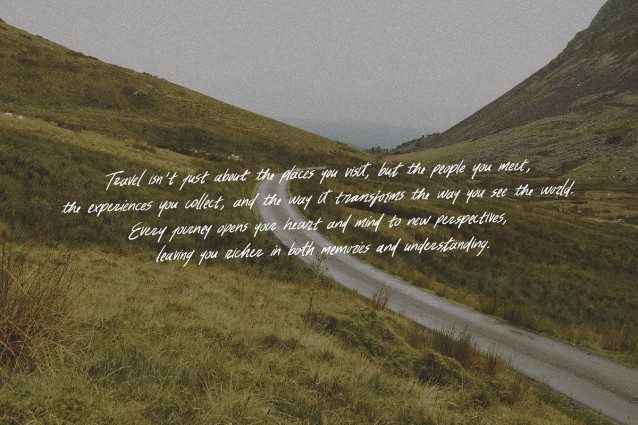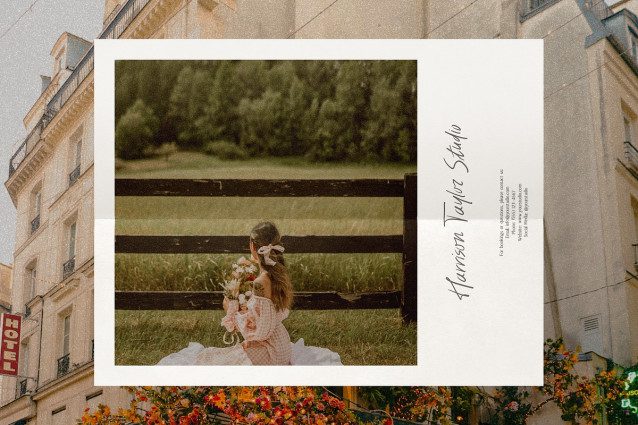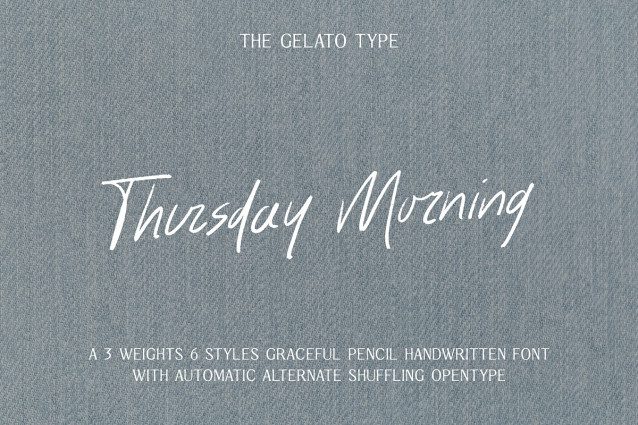
Thursday Morning Handwriting Font
Thursday Morning Handwriting Font a gracefully handwritten font designed to add warmth and elegance to your projects. With its natural charm and heartfelt personality, this typeface is perfect for those looking to convey authenticity and creativity.